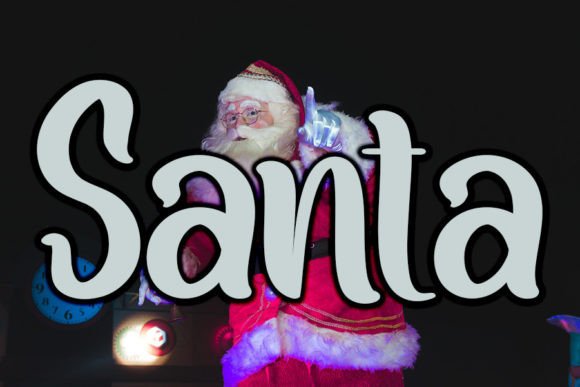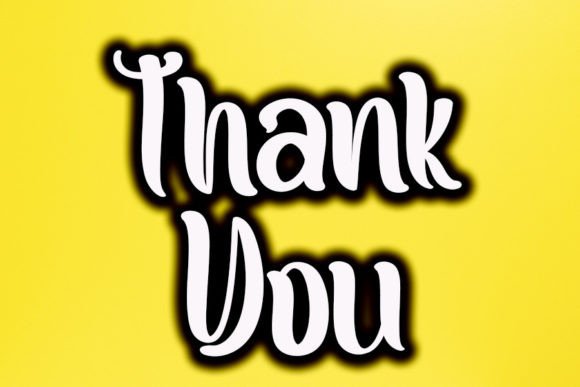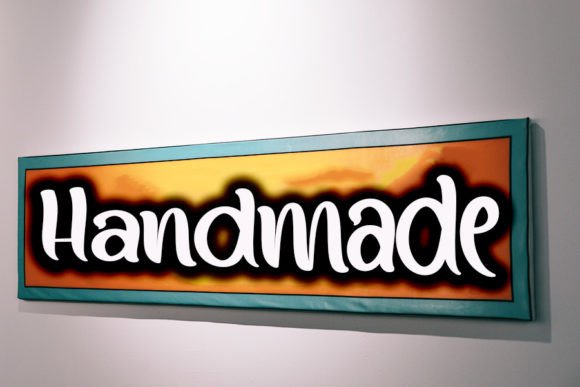
The Christmas font is a neat, elegant, and beautifully handwritten script that radiates festive charm. Designed with a timeless sense of style, this font brings warmth and sophistication to any project. Whether you’re crafting digital designs or print materials, Christmas Font delivers a visually captivating look that feels cozy yet refined.
Its fluid strokes and carefully crafted letterforms make it ideal for a wide variety of creative uses, not just during the holidays but all year round. You’ll find that this font blends professionalism with a personal touch, resulting in a visually stunning outcome.
Where to Use Christmas Font
Thanks to its elegant curves and handcrafted feel, the Christmas font works beautifully across many design contexts. You can easily incorporate it into both festive and everyday projects. Here are some popular uses:
Holiday greeting cards and seasonal invitations
Branding for winter-themed products or shops
Social media posts for Christmas promotions
Gift tags and holiday packaging designs
Elegant logos and blog headers
Wedding stationery with a festive touch
Personal or commercial art prints
Decorative merchandise such as mugs or shirts
If you’re a designer looking to add that extra spark to your work, this font will not disappoint.
Why Designers Love It
The Christmas font stands out for more than its festive name. It combines the grace of calligraphy with a modern handwritten aesthetic. Here’s what makes it a favorite:
Smooth, flowing lines with a handmade feel
Full set of uppercase and lowercase characters
Punctuation, numerals, and ligatures included
Supports multiple languages
Even if you’re new to font pairing or design, Christmas Font offers a simple and effective way to elevate your project’s style.
Its balance of elegance and readability ensures your text shines on any background, from minimalist white to bold holiday colors. It’s versatile enough for both personal DIY projects and professional branding materials.
The Christmas font is more than just a seasonal favorite—it’s a timeless script that brings warmth and style to any design. With its sophisticated yet friendly look, it helps you create memorable visuals that resonate with viewers.